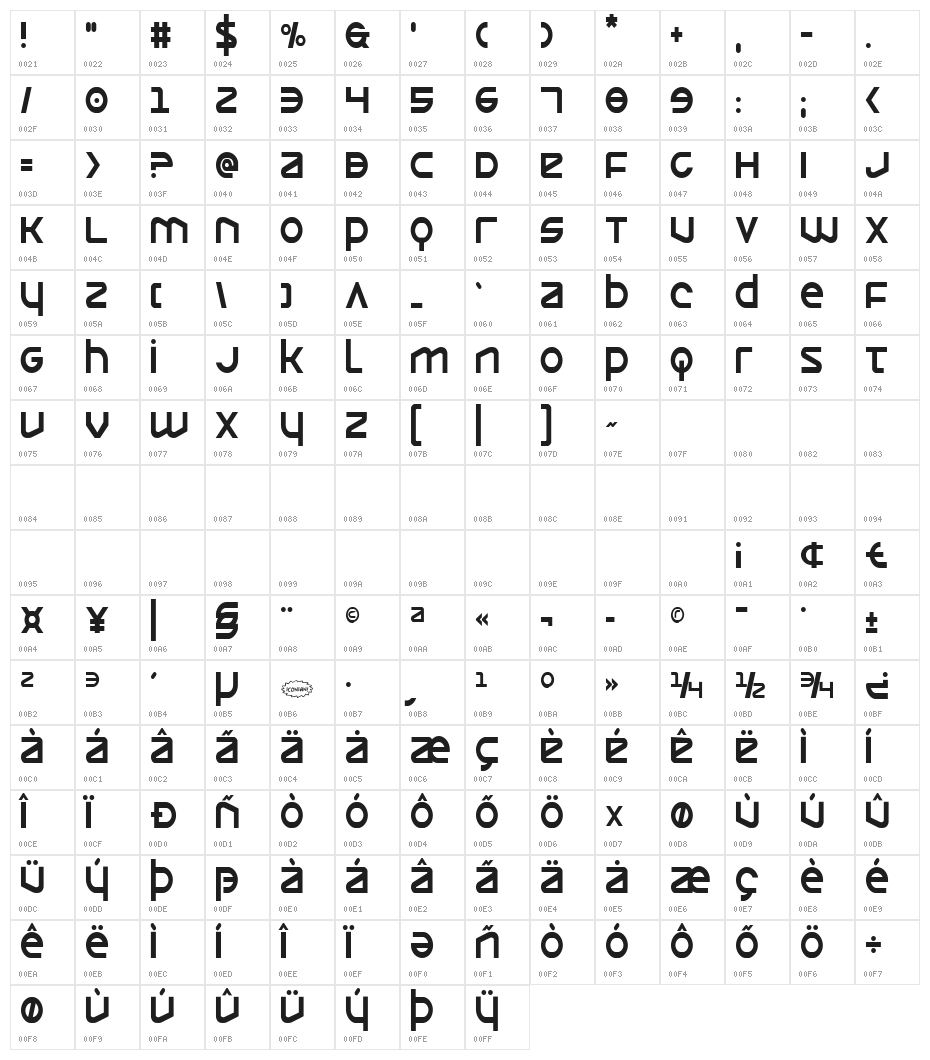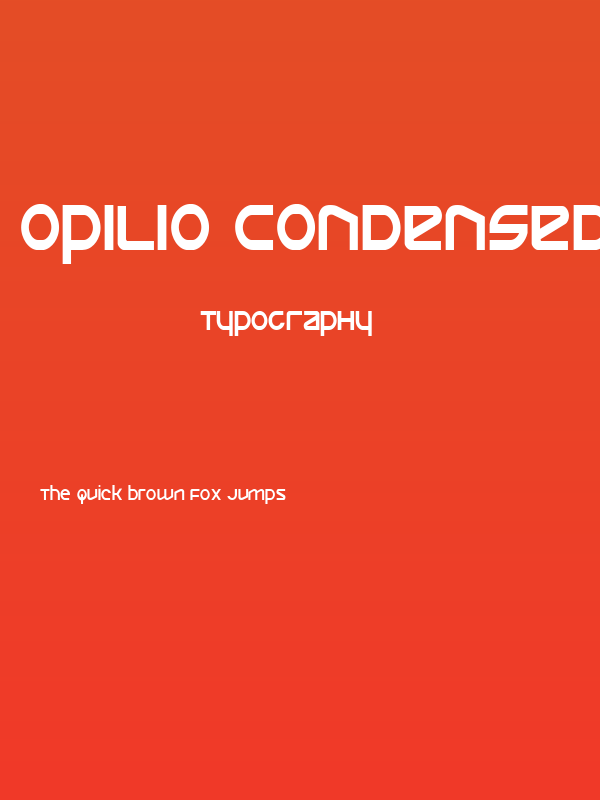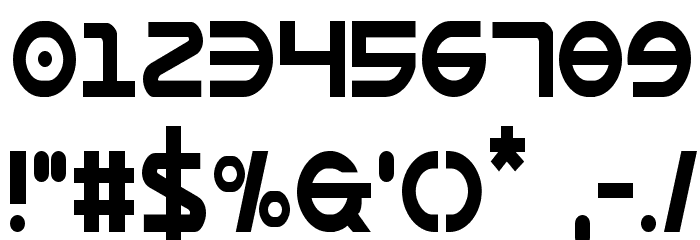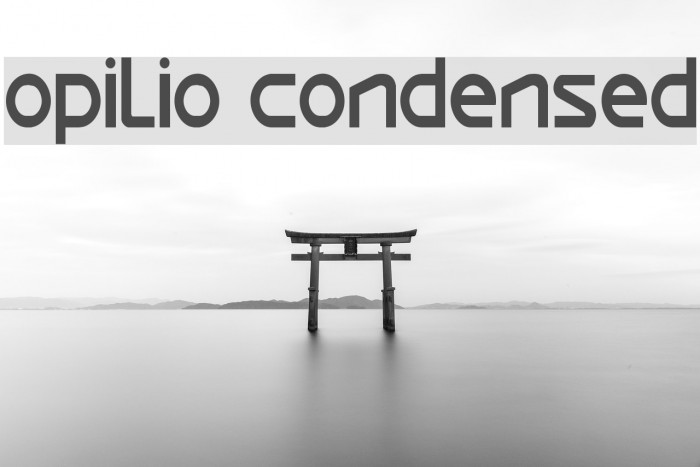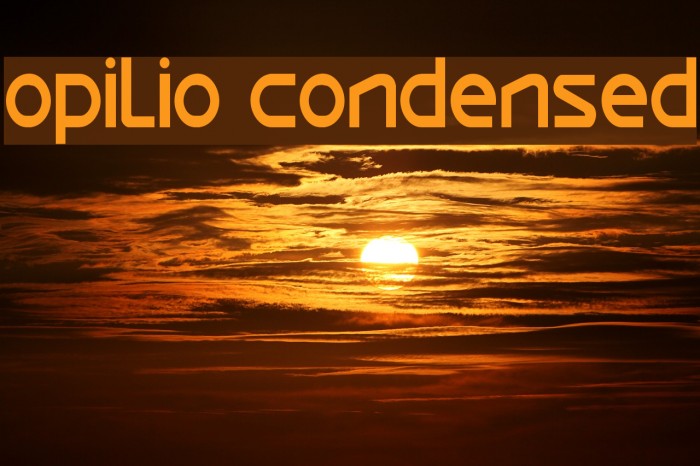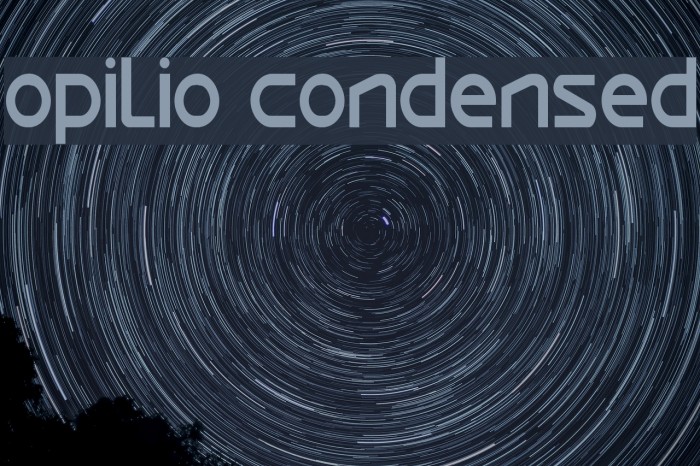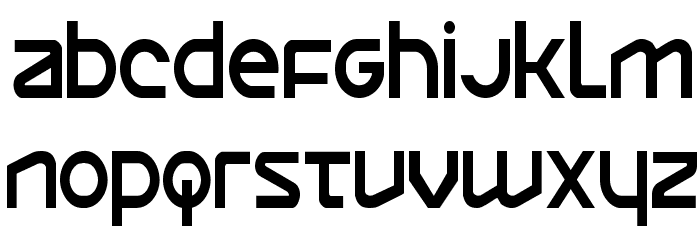
Opilio Condensed Font
Opilio Condensed Description
This font features a modern and geometric design with a distinct condensed style. The characters are bold and structured, with a uniform stroke width that gives a clean and cohesive appearance. The uppercase and lowercase letters maintain a consistent height, contributing to a balanced look. The numbers are designed with a similar geometric approach, ensuring readability and style. Special characters are crafted to match the overall aesthetic, making this font versatile for various applications. Its unique style is both eye-catching and functional, suitable for contemporary design projects.
OPILIO-CONDENSED UPPERCASE
OPILIO-CONDENSED LOWERCASE
OPILIO-CONDENSED OTHER CHARS
| Proposed Projects | Ideal for branding, advertising, posters, and modern web design projects. |